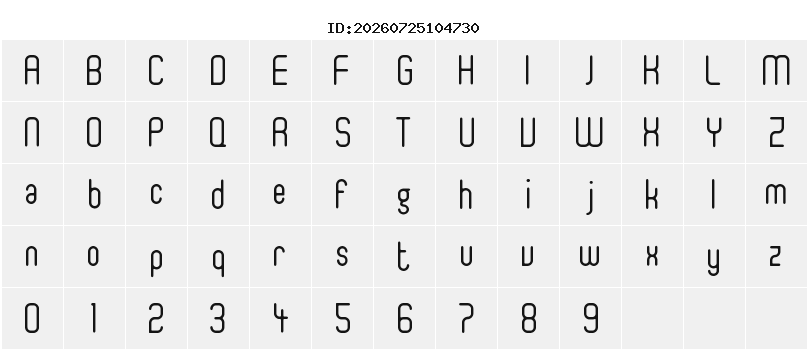
• Font Name: Ger4ronL Cond
• Full Font Name: Ger4ronL Cond
• Version: Version 1.00 July 18, 2008, created by moni
About Ger4ronL Cond.ttf
Ger4ronL Cond.ttf is a modern, elegant sans-serif font designed for ultimate readability and visual harmony. Perfect for branding, headlines, web design, and print materials.